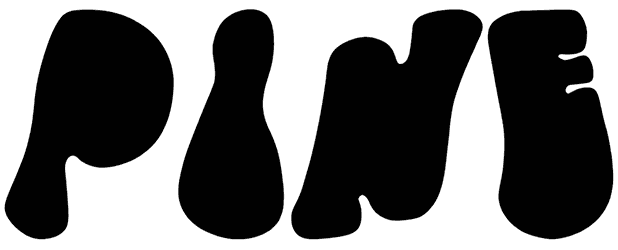
Pine Font
Designed byNicole Blue
Pine is a hippie font that will appeal to any viewer of any age. This bold font can turn all your creations into a casual and fun design that will dazzle the eyes, but it’s a bit hard to read. Although Pine does not include lowercase letters, it is still an enchanting cartoon font for logo design, inscriptions on clothes and bags, and kids’ stuff.